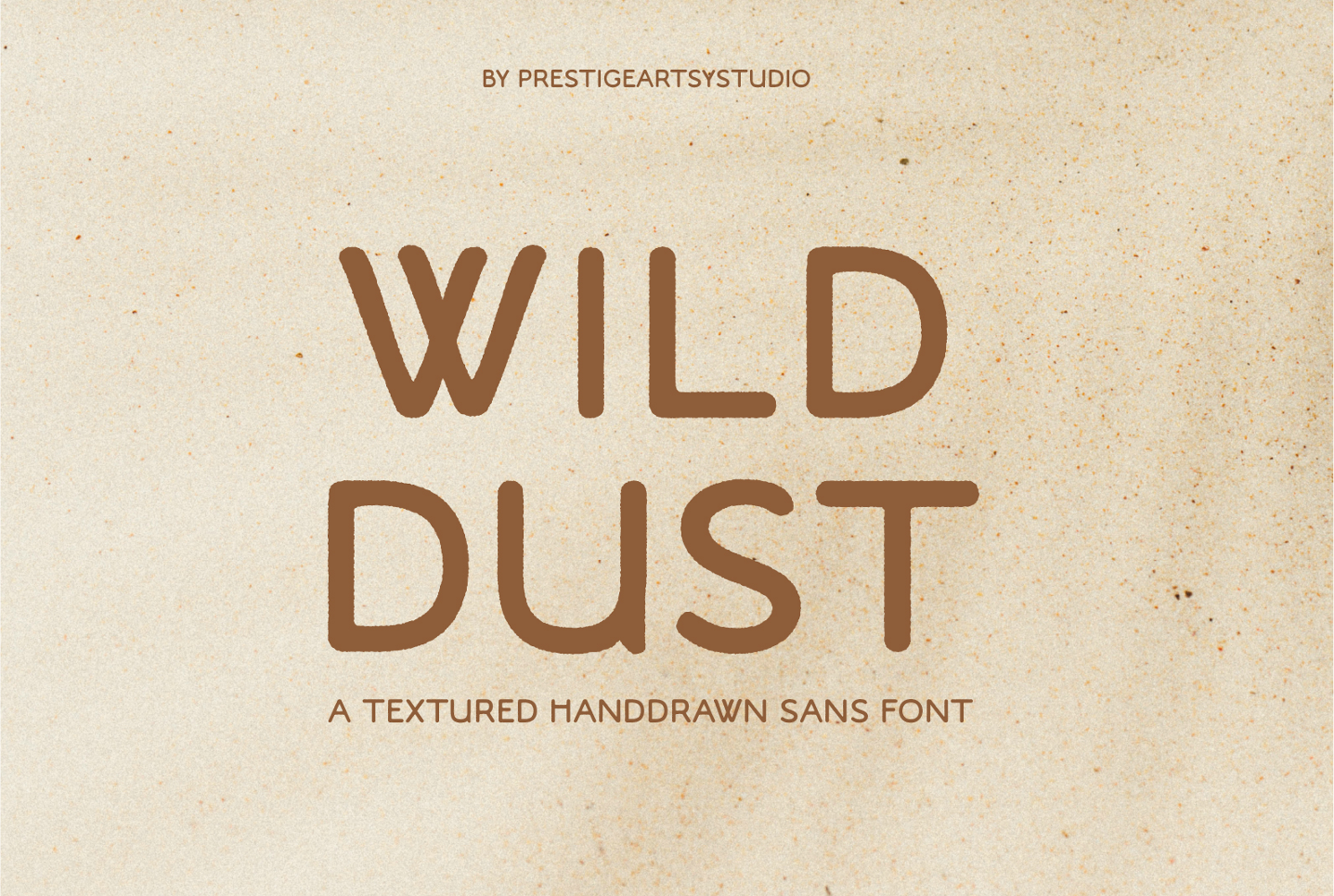
Wild Dust
Introducing Wild Dust, a contemporary sans-serif font that exudes cleanliness with a touch of subtle ink-bleed texture, reminiscent of letters imprinted on sun-bleached wood. This font boasts boldness, readability, and a hint of Western charm without veering into full cowboy territory. Ideal for a range of uses including western-themed posters, event flyers, branding, social media posts, merchandise, and more.
**Why It Stands Out:**
- Clean yet rugged: Sharp sans-serif shapes paired with a delicate organic bleed for an authentic printed feel
- Impressive display: Designed to captivate in larger sizes while maintaining readability
- Versatile vibe: Drawing inspiration from the Wild West, yet versatile and playful for contemporary and engaging designs
**Key Features:**
- Numerals from 0 to 9
- Various punctuation marks and symbols
- Well-adjusted kerning and neat spacing
- Subtle and uniform ink-bleed effect throughout
**Ideal for Use in:**
- Western and rodeo-themed posters
- Branding for cafes, BBQ joints, and food trucks
- Eye-catching social media headers and thumbnails
- Vintage-style labels and packaging
- Promotional event flyers, stickers, and apparel designs